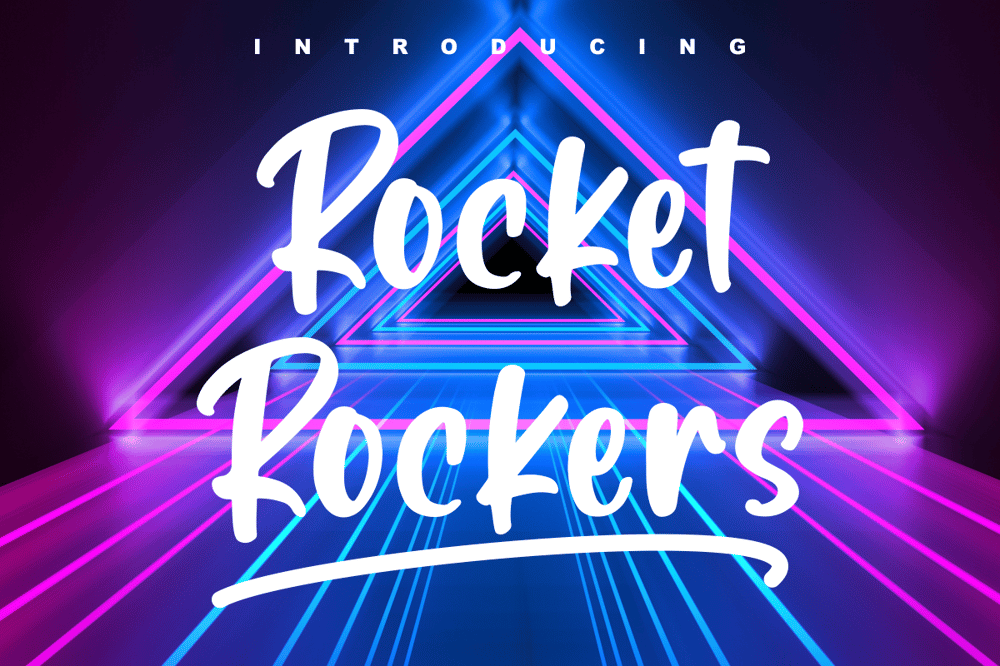
Rocket Rockers Font Family was designed by Muhammad Fikry and published by Fikryal. Rocket Rockers contains 1 styles and family package options. Rocket Rockers is a beautiful handwritten font perfect for crafting, branding, invitation, stationery, wedding designs, social media posts, advertisements, product packaging, product designs, label, photography, watermark, special events or anything.Rocket Rockers with full set of uppercase and lowercase letters, multilingual symbols, numerals and punctuation.